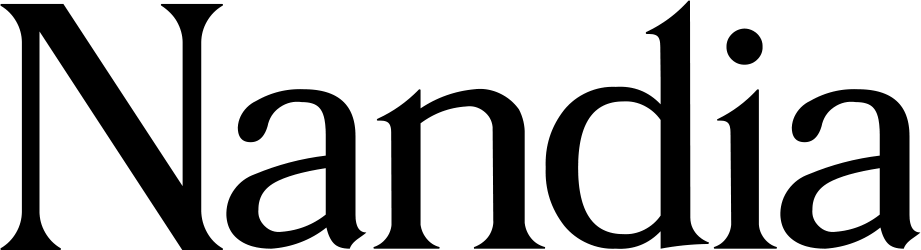
Nandia Font
Sometimes simplicity is the best choice. Now you can use this serif font and make your layouts ten times better. Download it right now and use it for different projects like; flyers, websites, books, magazines, and more. If you wish to get more like Nandia, just browse our vast library.